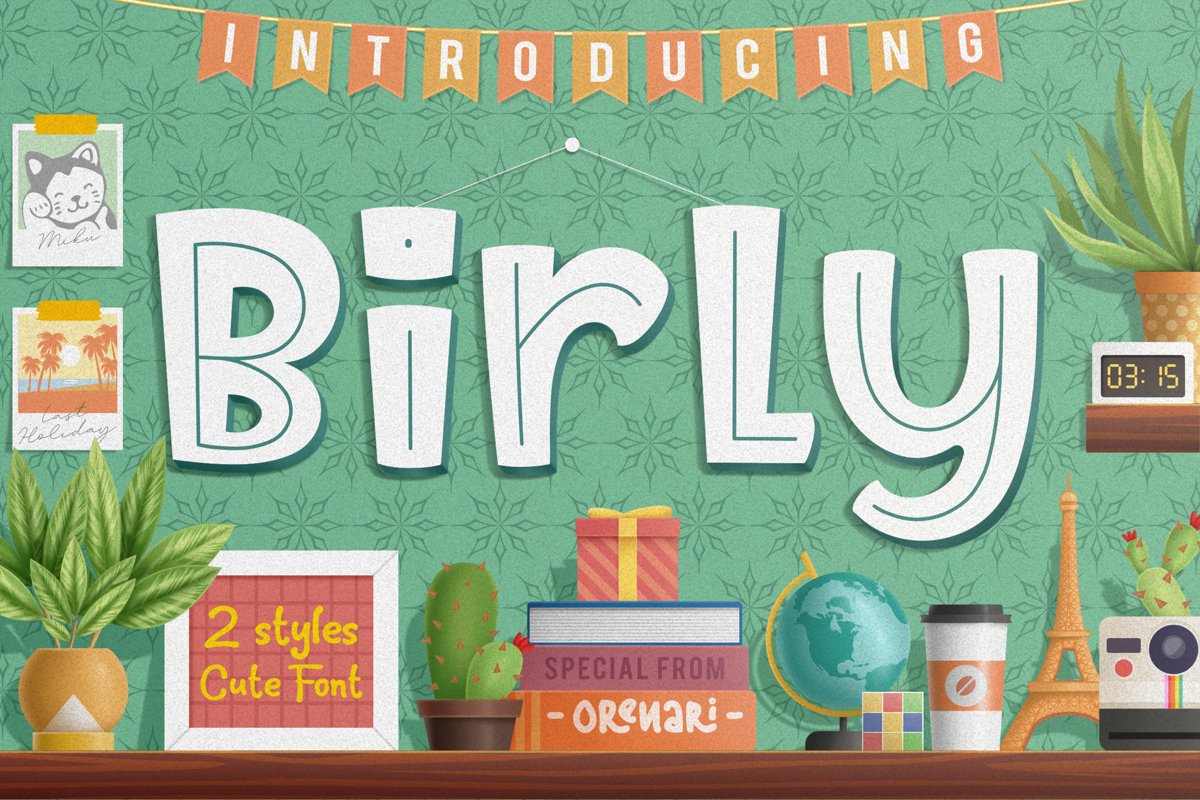
Birly | 2 Cute Font Style
A few nights ago, I dreaming about making a cute fonts and the childrens in a city love it.
I only remember some character of the font. I think that was a sign to make a new font.
So, here it is, Birly ~ 2 Styles Cute Font. A new font and I think its cute yet playful for your fun projects.
Birly was made with all my heart, i love it, and I hope you like it too.
Birly Font has 2 styles, the regular and solid. You can choose, these all in the package!